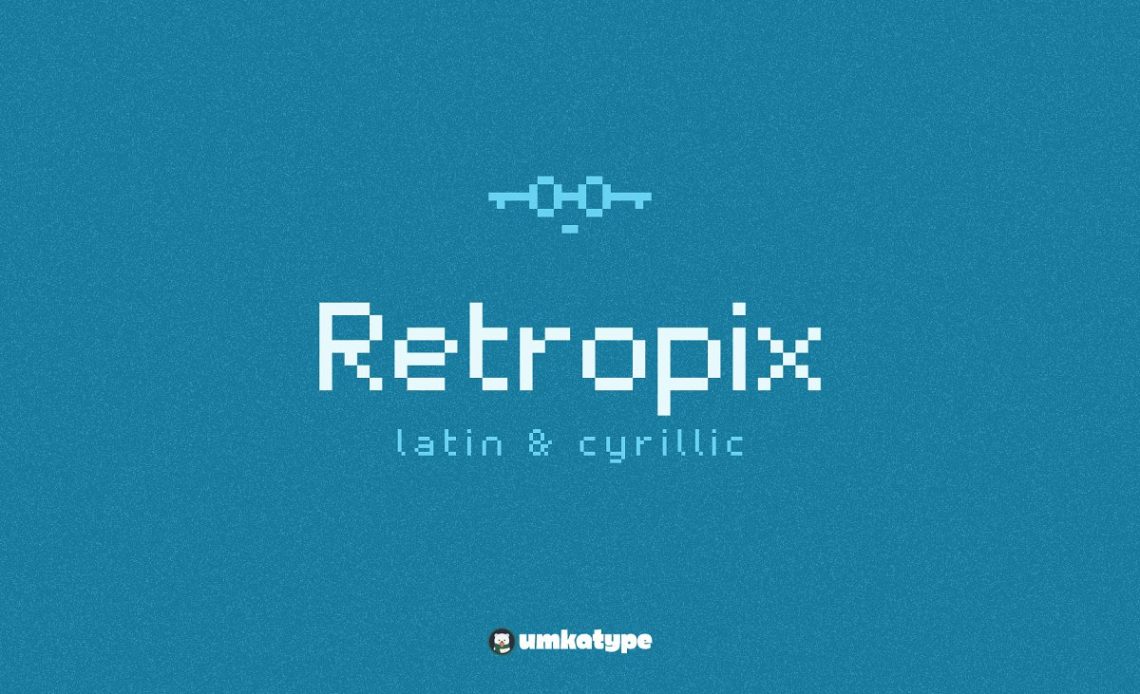
Looking for the best font for website text that will make your web design, branding, and social media works stand out? Look no further than Retropix Font, created by Umka Type.
Retropix is a display font that has been carefully crafted to ensure that it stands out in any project. The font family includes extended Latin and Cyrillic letters, making it a great choice for those looking for a multilingual font.
Retropix was specifically created for games, web design, branding, and social media works. Its unique and eye-catching design will make sure that your content stands out from the crowd, helping you attract more customers and increase engagement.